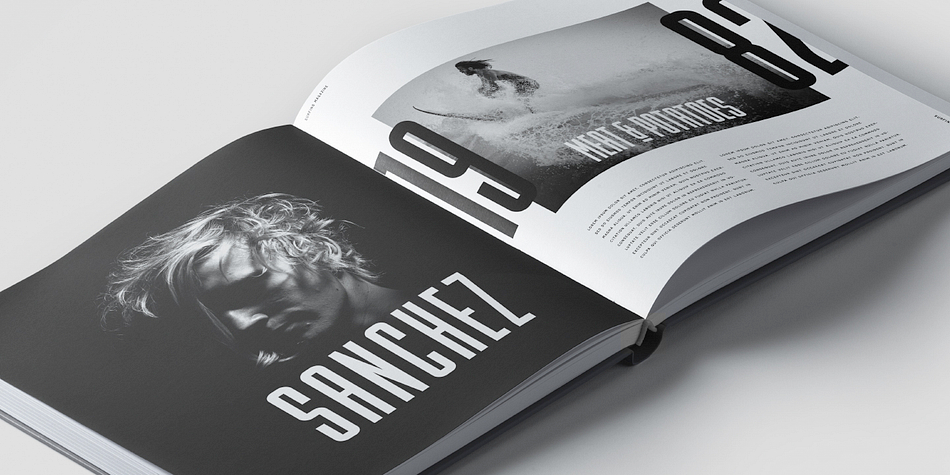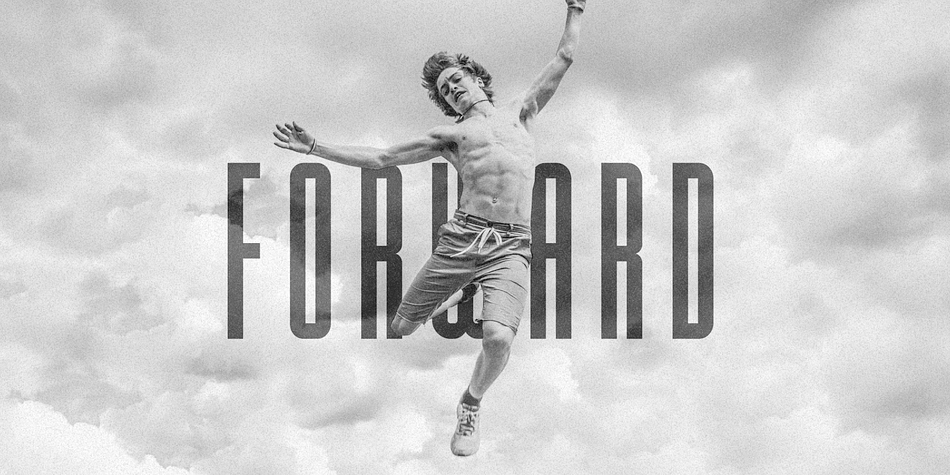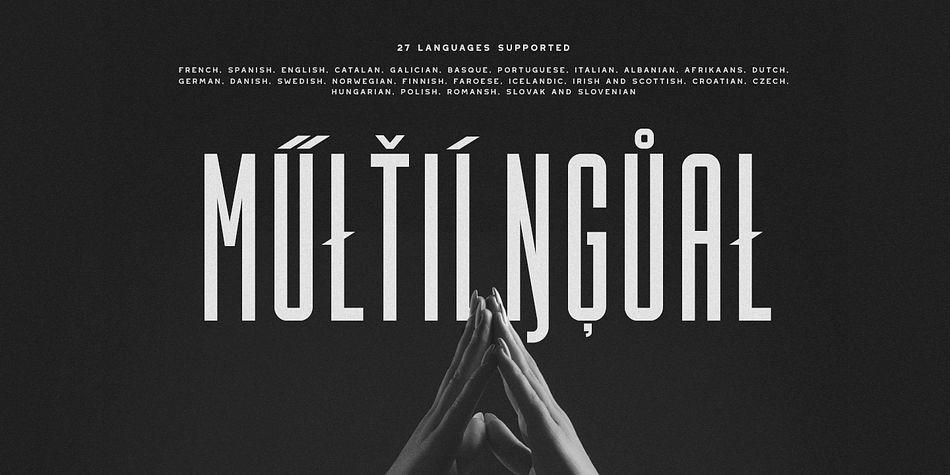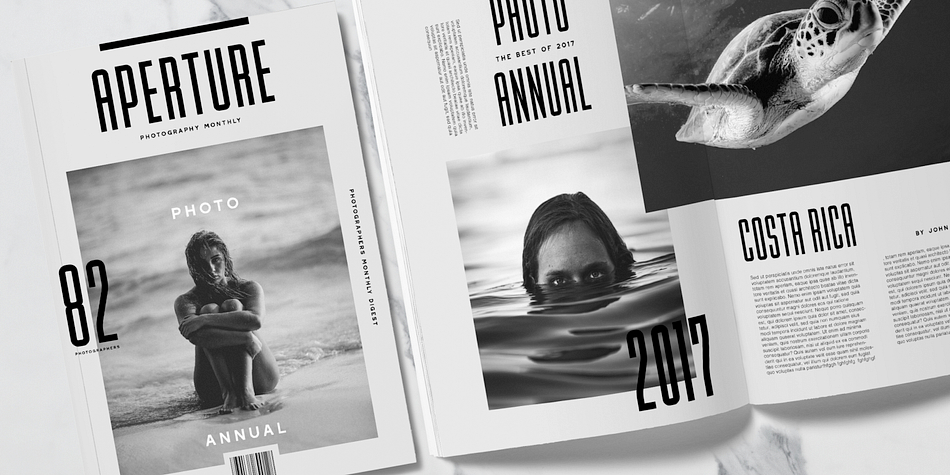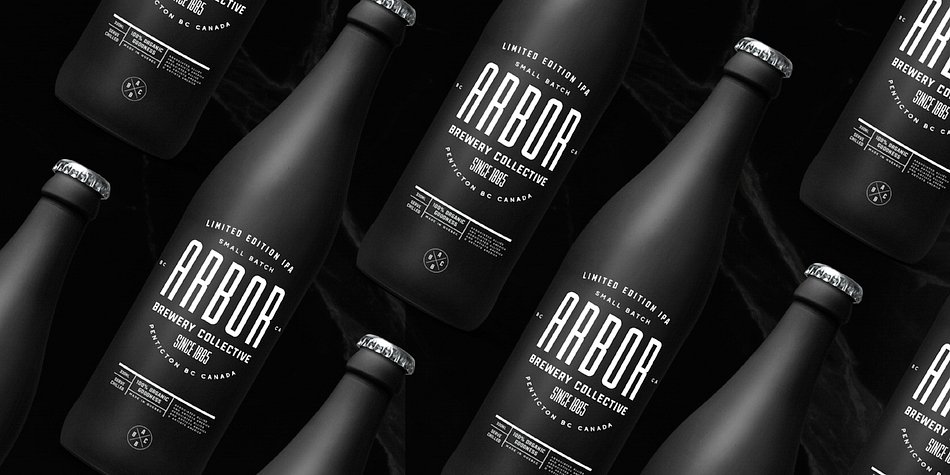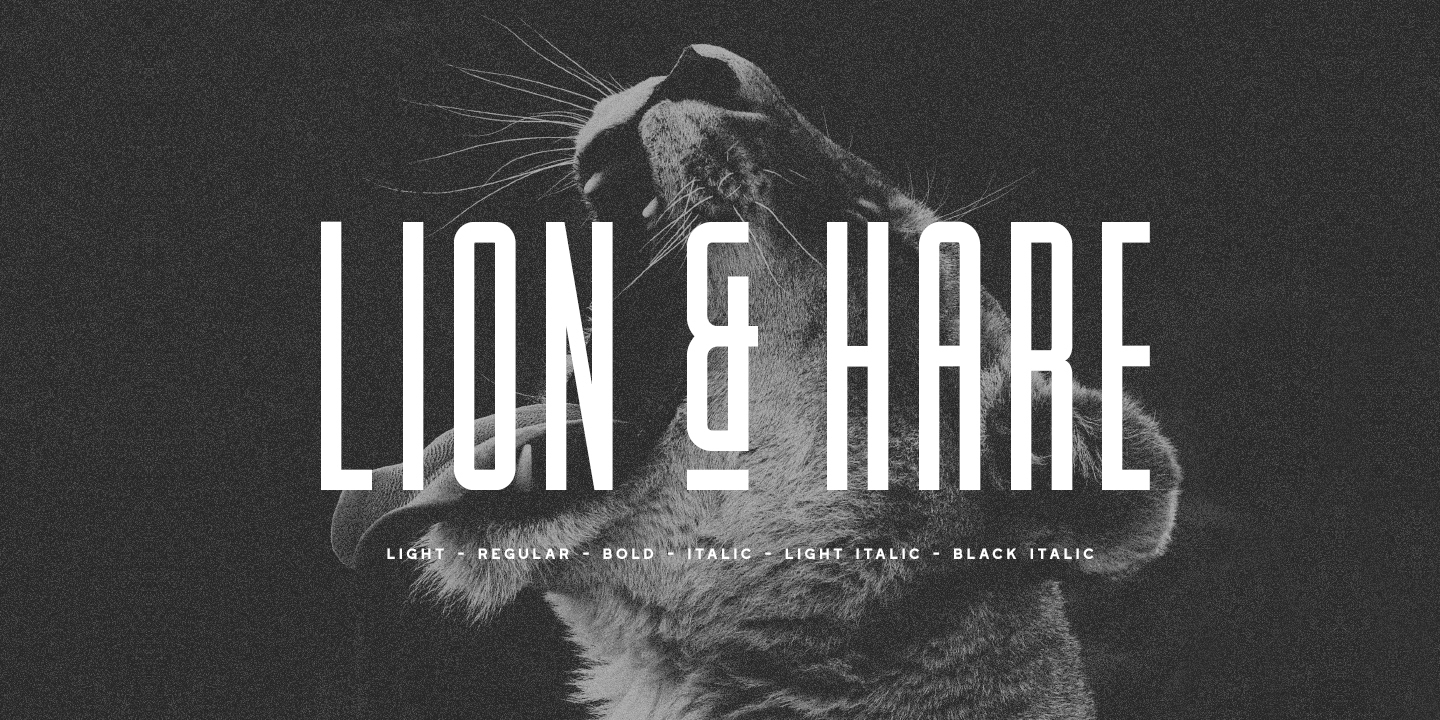
Designed by Greg Nicholls, Lion & Hare is a display sans font family. This typeface has six styles and was published by Rook Design Supply.
Lion & Hare is an ultra compressed, tall font family that portrays strength and power. The characters maintain fairly square edges to give a more consistent geometric/industrial look to the font. This font family supports 27 languages and comes in 6 styles. Lion and Hare works fantastic for website headers, magazine layouts, logos, branding and much more.